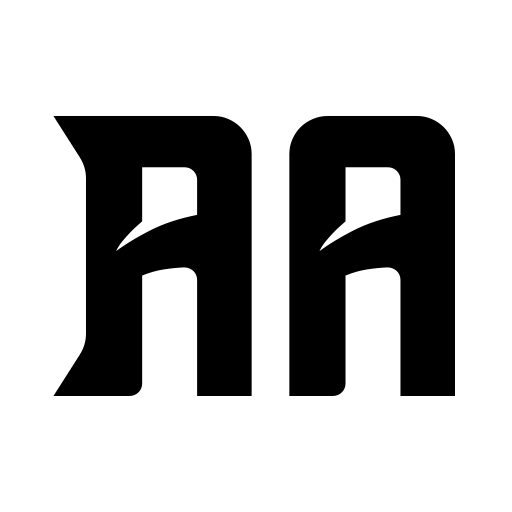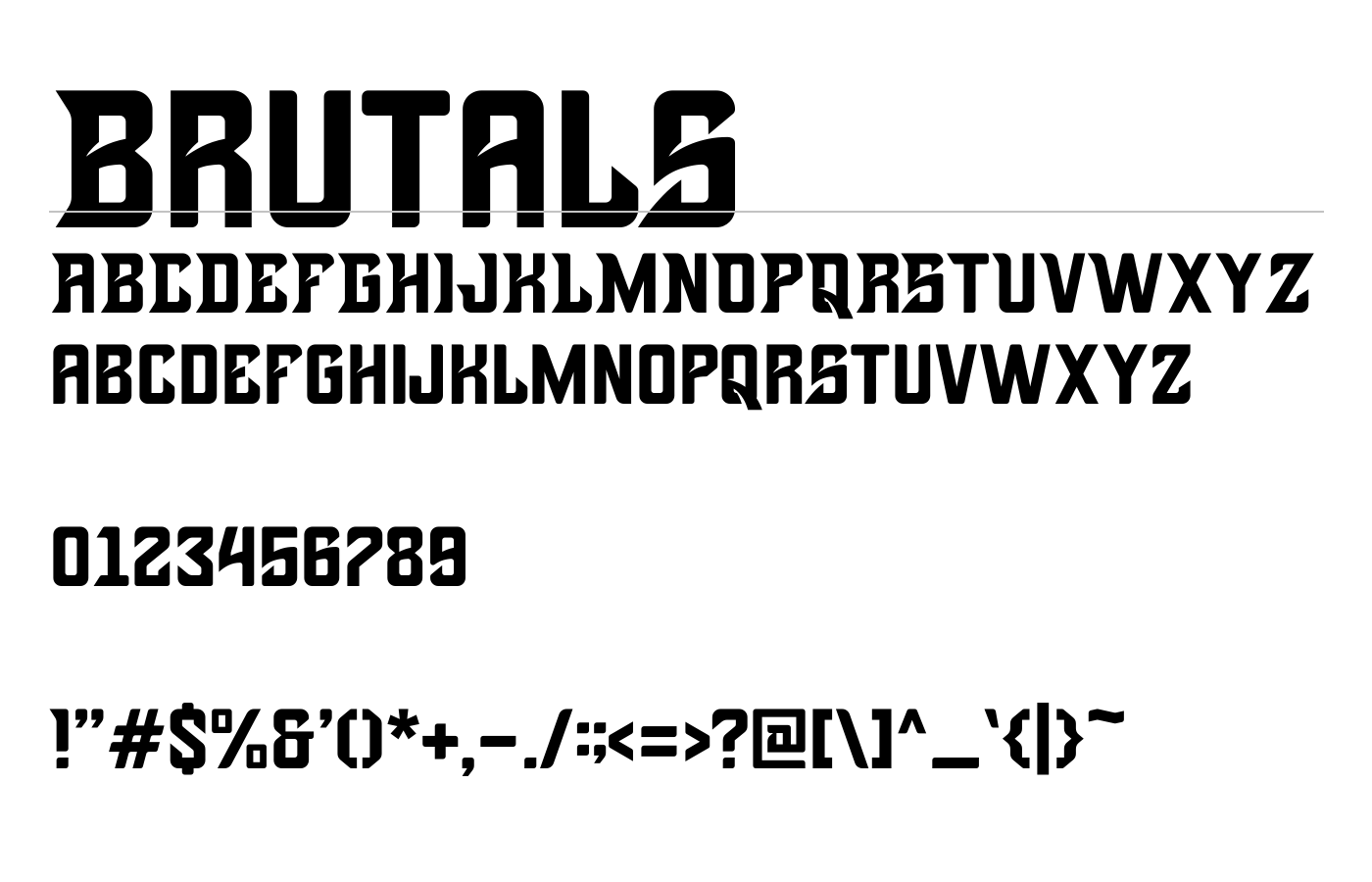
Brutals is a bold, condensed sans serif font with a strong, edgy character and sharp geometric cuts that lend it a modern, industrial feel. Its uppercase-only style, high stroke contrast, and unique angular details make it perfect for impactful headlines, branding, and design projects seeking a tough, assertive look. This font works best in logos, posters, and editorial designs where a bold, confident statement is needed.
Brutals Font